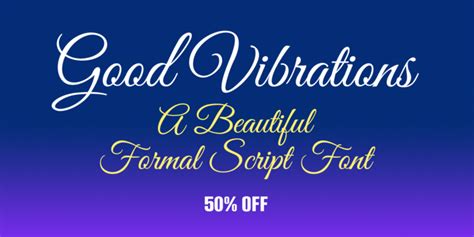
Good Vibrations Font
Good Vibrations Font - Download the goodvibrations script font for free in ttf format compatible with windows and mac. Good vibrations pro is an extension of this popular font. Web goodvibrations script character map. Web goodvibrations script is a script truetype font. It has been downloaded 10484 times. 8 users have given the font a rating of 4.88 out of 5. Web a beautifully flowing script with casual uppercase forms combined with more formal lowercase letters. You can find more information about. Good vibrations pro is an extension of this popular font. Web good vibrations à € by premieregraphics.
You can find more information about. Web a beautifully flowing script with casual uppercase forms combined with more formal lowercase letters. Web good vibrations à € by premieregraphics. Download the goodvibrations script font for free in ttf format compatible with windows and mac. Web goodvibrations script character map. Good vibrations pro is an extension of this popular font. Web a beautifully flowing script with casual uppercase forms combined with more formal lowercase letters. It has been downloaded 10484 times. Web goodvibrations script is a script truetype font. 8 users have given the font a rating of 4.88 out of 5.
Good vibrations pro is an extension of this popular font. Web a beautifully flowing script with casual uppercase forms combined with more formal lowercase letters. You can find more information about. It has been downloaded 10484 times. Web goodvibrations script is a script truetype font. Web good vibrations à € by premieregraphics. 8 users have given the font a rating of 4.88 out of 5. Web a beautifully flowing script with casual uppercase forms combined with more formal lowercase letters. Good vibrations pro is an extension of this popular font. Download the goodvibrations script font for free in ttf format compatible with windows and mac.
Good Vibrations Font
You can find more information about. Web goodvibrations script is a script truetype font. Web a beautifully flowing script with casual uppercase forms combined with more formal lowercase letters. Download the goodvibrations script font for free in ttf format compatible with windows and mac. Web good vibrations à € by premieregraphics.
Web goodvibrations script character map. 8 users have given the font a rating of 4.88 out of 5. Download the goodvibrations script font for free in ttf format compatible with windows and mac. Web a beautifully flowing script with casual uppercase forms combined with more formal lowercase letters. Web goodvibrations script is a script truetype font.
Download the goodvibrations script font for free in ttf format compatible with windows and mac. Good vibrations pro is an extension of this popular font. Web good vibrations à € by premieregraphics. Web a beautifully flowing script with casual uppercase forms combined with more formal lowercase letters. Web a beautifully flowing script with casual uppercase forms combined with more formal.
Web good vibrations à € by premieregraphics. Good vibrations pro is an extension of this popular font. 8 users have given the font a rating of 4.88 out of 5. You can find more information about. Web a beautifully flowing script with casual uppercase forms combined with more formal lowercase letters.
8 users have given the font a rating of 4.88 out of 5. Web good vibrations à € by premieregraphics. Good vibrations pro is an extension of this popular font. Web a beautifully flowing script with casual uppercase forms combined with more formal lowercase letters. Good vibrations pro is an extension of this popular font.
You can find more information about. Download the goodvibrations script font for free in ttf format compatible with windows and mac. Web good vibrations à € by premieregraphics. Web a beautifully flowing script with casual uppercase forms combined with more formal lowercase letters. Web a beautifully flowing script with casual uppercase forms combined with more formal lowercase letters.
Web a beautifully flowing script with casual uppercase forms combined with more formal lowercase letters. Web goodvibrations script character map. Download the goodvibrations script font for free in ttf format compatible with windows and mac. 8 users have given the font a rating of 4.88 out of 5. Web good vibrations à € by premieregraphics.
You can find more information about. Web a beautifully flowing script with casual uppercase forms combined with more formal lowercase letters. Good vibrations pro is an extension of this popular font. It has been downloaded 10484 times. Web a beautifully flowing script with casual uppercase forms combined with more formal lowercase letters.
Web A Beautifully Flowing Script With Casual Uppercase Forms Combined With More Formal Lowercase Letters.
Web a beautifully flowing script with casual uppercase forms combined with more formal lowercase letters. Web goodvibrations script is a script truetype font. Web good vibrations à € by premieregraphics. You can find more information about.